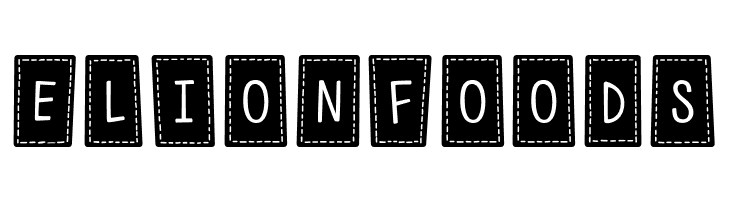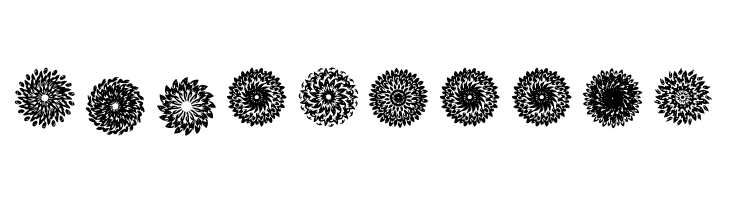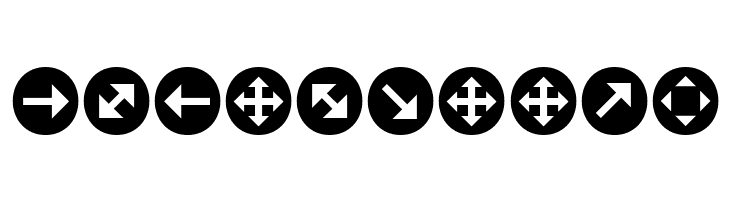
• Cruncho Monogram
A decorative monogram font with classic serif letters encased in ornate circular borders.
• Deco Mix
A collection of intricate, vintage-inspired decorative elements with art deco influences.
• Decorative Stencil
Ornate stencil-style decorative glyphs with bold, intricate designs.
• Fine Books
An ornate, decorative font with intricate borders around bold, capitalized characters.
• Quilt*Patches
( Fonts by Brittney Murphy Design )
A playful, patchwork-style font with dotted borders and a handcrafted feel.
• Uchrony Cube Regular
( Uchrony is a condensed proportion slab serif typeface. The font family is made up of 3 styles, Roman, Small Caps & Italics, with 6 weights each (Extra Light, Light, Regular, Medium, Bold and Extra Bold). )
A bold, blocky font with characters enclosed in geometric borders, offering a modern and structured look.
• Mandara Regular
( Fonts by Letterayu )
Ornamental dingbat font with mandala and floral motifs.
• Uchrony Arrows Regular
( Fonts by deFharo )
A decorative font featuring bold arrow symbols in circular and square borders.
• IM_FELL_FLOWERS_1
( Fonts by Igino Marini )
Intricate floral and ornamental design with a vintage, decorative style.
• Faux Snow BRK
( Fonts by Brian Kent )
A decorative snowflake dingbat font with detailed, unique glyphs.